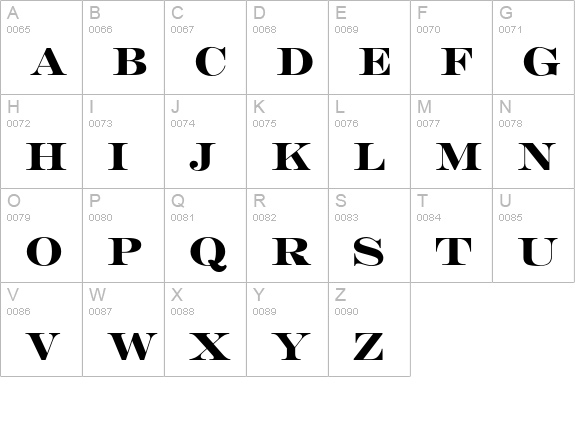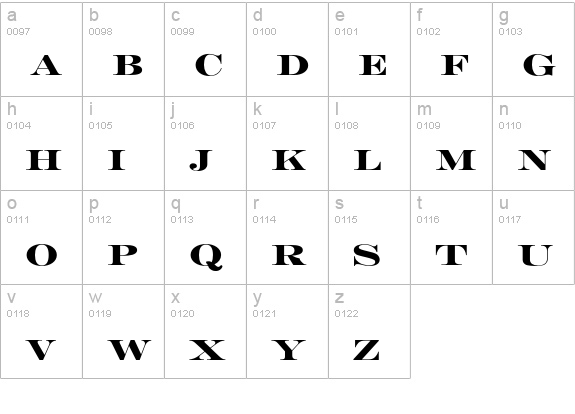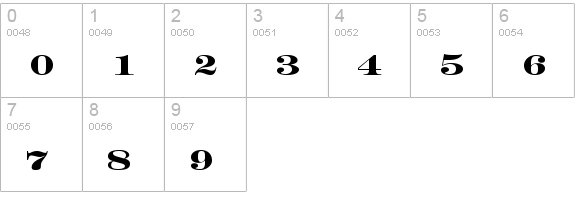
Engravers-Solid Font Details
Engravers-Solid font is a classic and timeless typeface that exudes elegance and professionalism. Its clean lines and bold strokes make it ideal for a wide range of design projects, from invitations to branding materials. The Engravers-Solid font is versatile and can be used for both headers and body text, ensuring a cohesive and polished look across all your designs. What's even better is that Engravers-Solid font is available for free download at FontsMarket.com. This means you can easily add this sophisticated font to your collection without any cost. Don't miss out on the opportunity to elevate your designs with the Engravers-Solid font today!